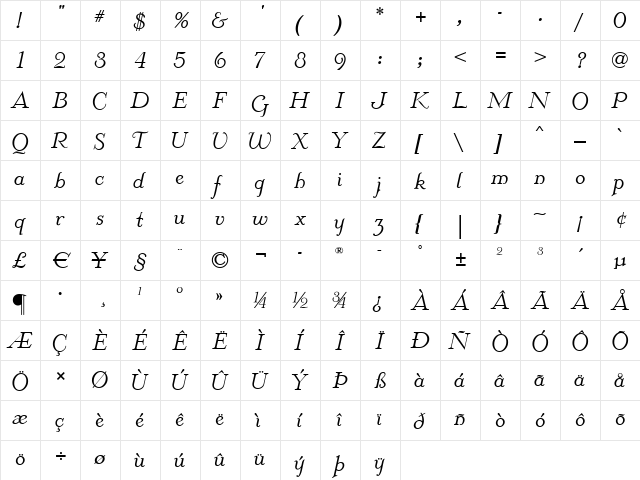
McKenna Handletter NF Roman Italic Regular
| Designer | Nick Curtis |
Design Context for McKenna Handletter NF Roman Italic Typeface
McKenna Handletter NF Roman Italic flows with the natural rhythm of handwritten lettering, making it ideal for designs that call for warmth and personal expression.
Font Pairing: Combine McKenna Handletter NF Roman Italic with a simple geometric sans for maximum contrast — the tension between flowing curves and clean structure is a classic typographic pairing.
Pro Tip: Use McKenna Handletter NF Roman Italic for short runs of text — names, titles, or taglines. Extended body copy in script faces tires the eye quickly.